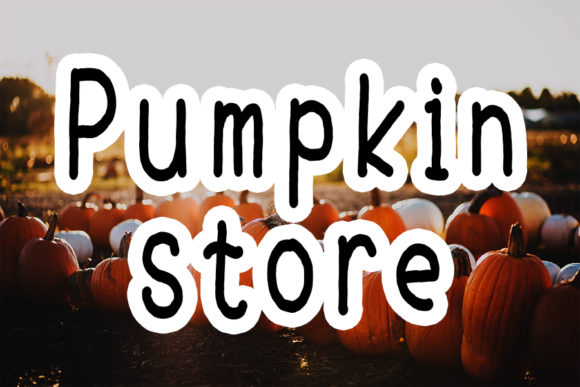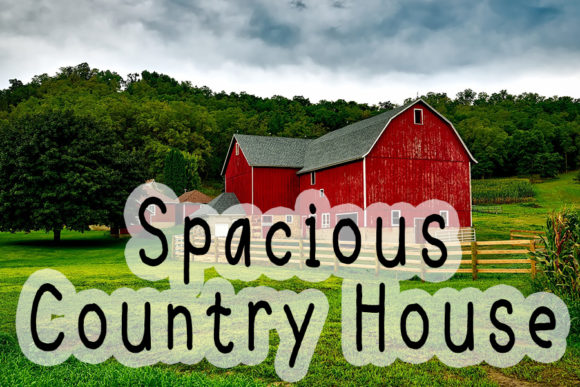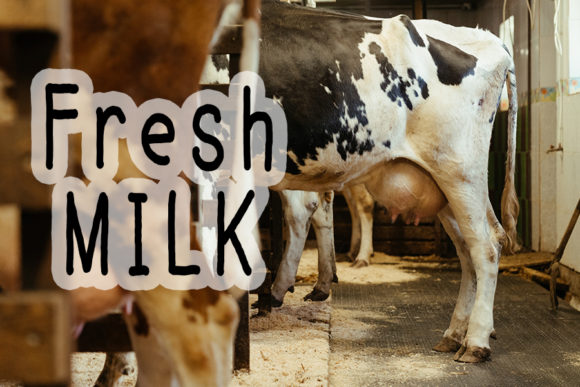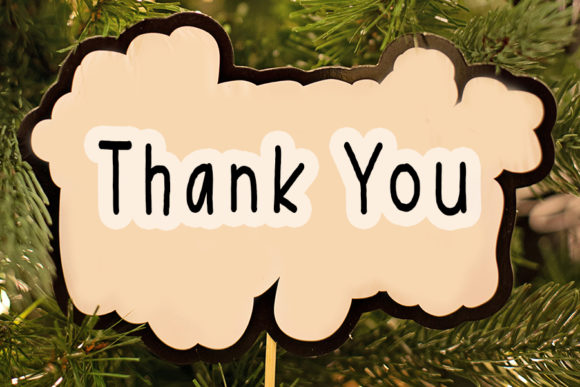
Introducing Farmhouse Font: The Perfect Addition to Your Design Arsenal
Are you a designer or crafter looking for a font that can add a touch of warmth and personality to your creations? Look no further than Farmhouse Font, a delightful handwritten font that’s sure to bring a smile to your face. With its playful and friendly vibe, Farmhouse Font is the perfect choice for anyone who wants to add a little joy and whimsy to their designs.
Farmhouse Font is a beautiful display font that’s been carefully crafted to bring a sense of rustic charm and coziness to your designs. Its handwritten style gives it a personal and approachable feel, making it perfect for use in a wide range of creative projects, from invitations and greeting cards to branding and advertising materials.
- Cute and Friendly: Farmhouse Font is designed to be warm and inviting, with a playful personality that shines through in every letter.
- Handwritten Style: The font’s handwritten style gives it a personal and unique feel that’s perfect for adding a touch of personality to your designs.
- Display Font: Farmhouse Font is a display font, making it perfect for use in headlines, titles, and other prominent text elements.
- Easy to Read: Despite its playful style, Farmhouse Font is easy to read, making it perfect for use in a wide range of creative projects.
How to Use Farmhouse Font in Your Designs
Farmhouse Font is incredibly versatile, making it perfect for use in a wide range of creative projects. Here are just a few ideas to get you started:
- Invitations and Greeting Cards: Add a personal touch to your invitations and greeting cards with Farmhouse Font’s playful and friendly style.
- Branding and Advertising: Use Farmhouse Font to add a touch of personality to your branding and advertising materials, from logos and business cards to flyers and brochures.
- Social Media Graphics: Add a playful touch to your social media graphics with Farmhouse Font, perfect for creating eye-catching posts and stories.
- DIY Crafts: Farmhouse Font is also perfect for use in DIY crafts, such as handmade cards, gift tags, and other paper crafts.
Why Choose Farmhouse Font?
With so many fonts to choose from, why should you choose Farmhouse Font? Here are just a few reasons why:
- Unique Style: Farmhouse Font has a unique and playful style that’s sure to stand out in a crowd.
- High-Quality: Farmhouse Font is a high-quality font that’s been carefully crafted to ensure that it looks great in every design.